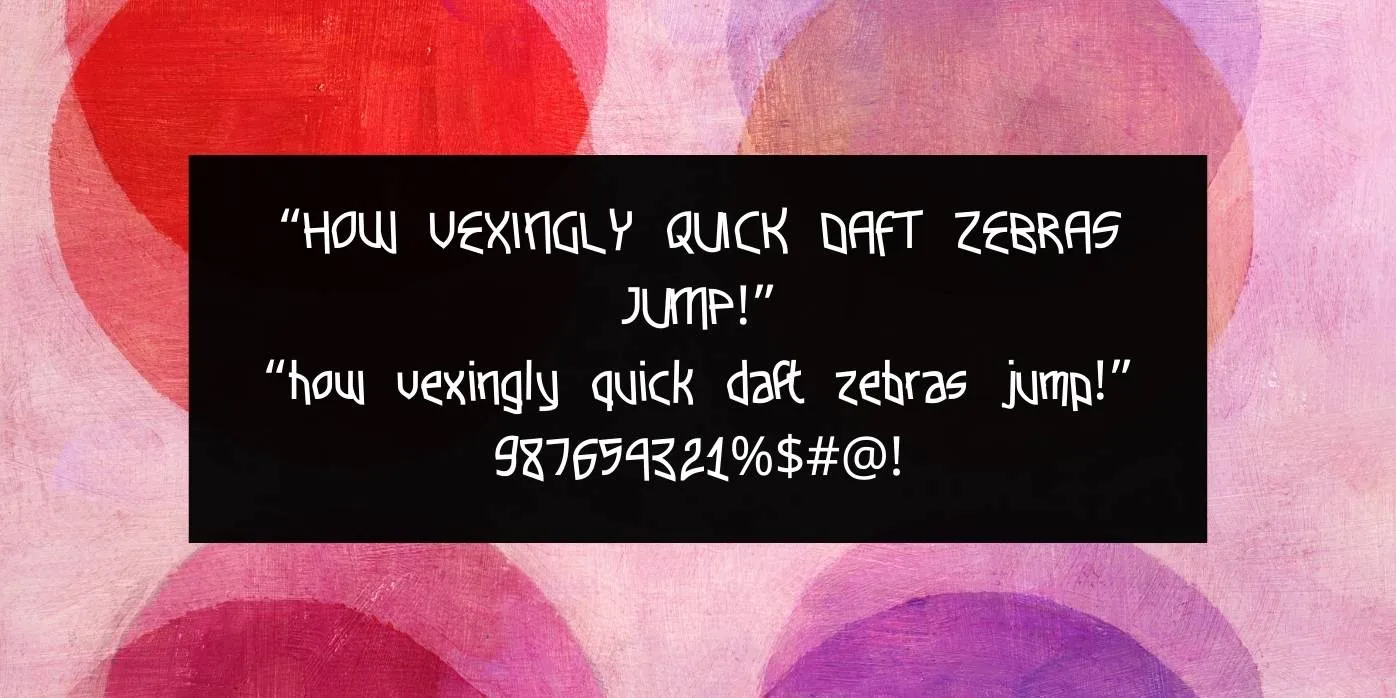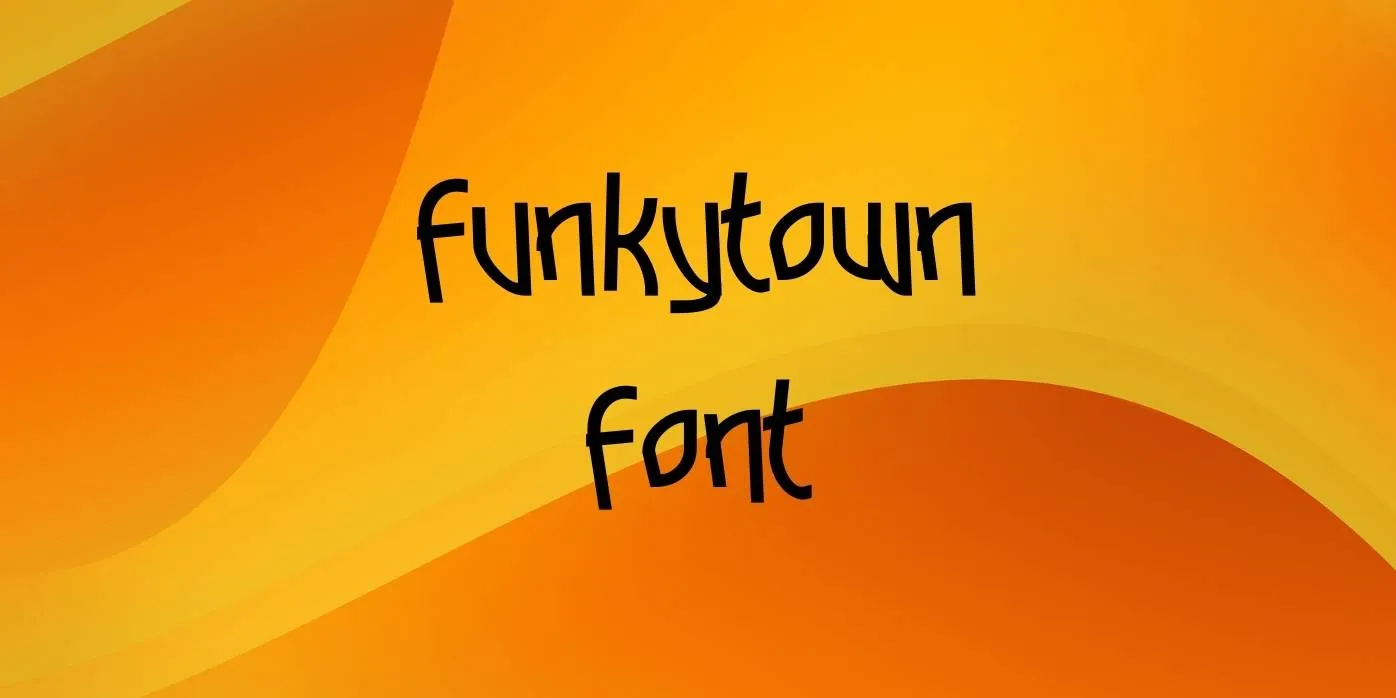
Funkytown Font
Today we present Funkytown Font which belongs to the fancy font family. The main developer of this typeface is Geronimo Font Studios.  You can use this font for both commercial and personal projects. This awesome typeface is specified for the CSS and SVG. This funky font was created by Geronimo Font Studios and is perfect for any project that needs a touch of fun!
This tremendous font includes upper and lowercase characters, numbers, and punctuation marks. This typeface is not a part of google fonts. This typeface includes different glyphs and styles that you can use to create unique and eye-catching designs. Another similar font is dirty pop font is perfect for different designs.